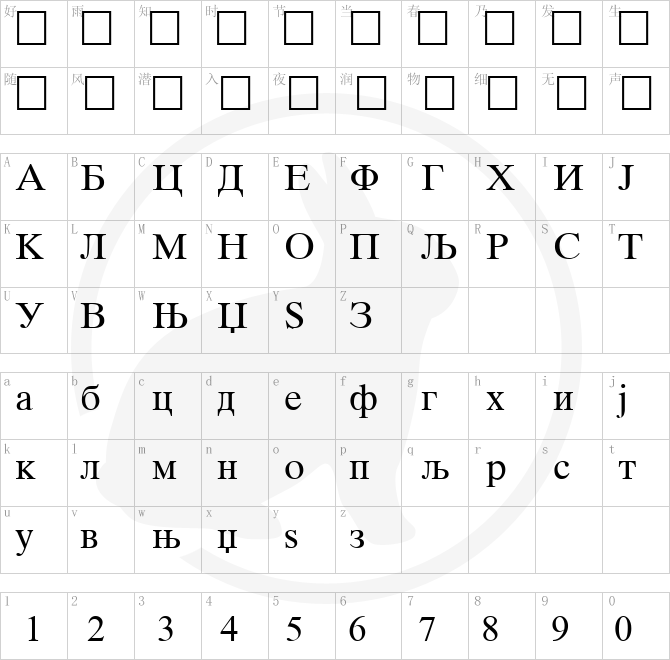
- Font Name:Macedonian Tms
Macedonian-Tms.ttf is a very beautiful artistic font, Macedonian-Tms.ttf is widely used in the design and printing of various books and pictures,Macedonian-Tms.ttf has a strong visual impact,Macedonian-Tms.ttf is a commonly used font in newspapers, magazines and books, and is used in posters, e-commerce Poster design, store design, logo design, font design and other fields.Macedonian-Tms.